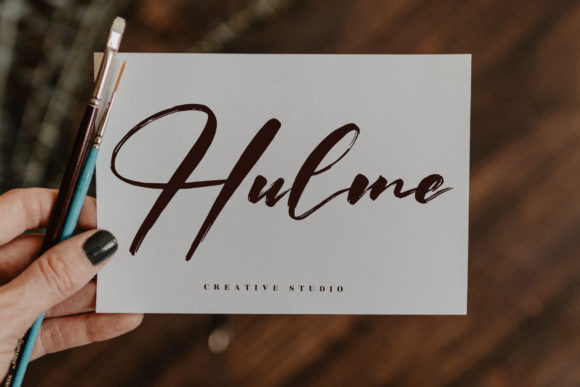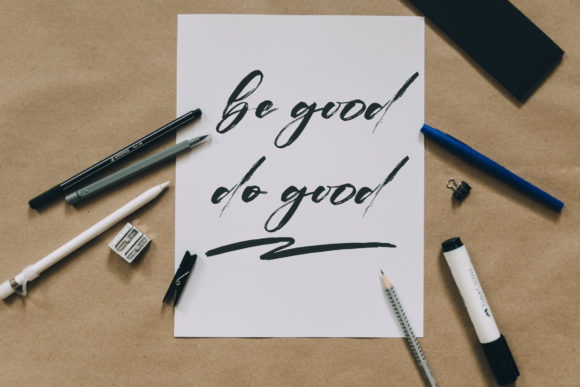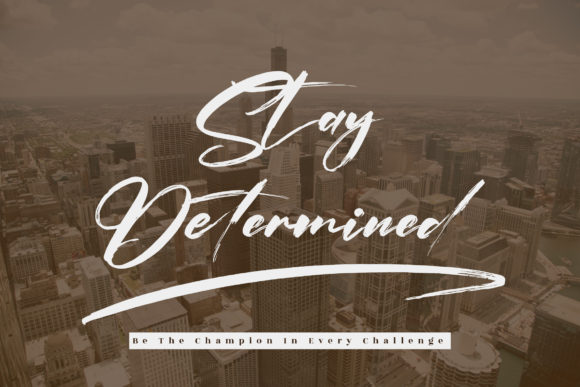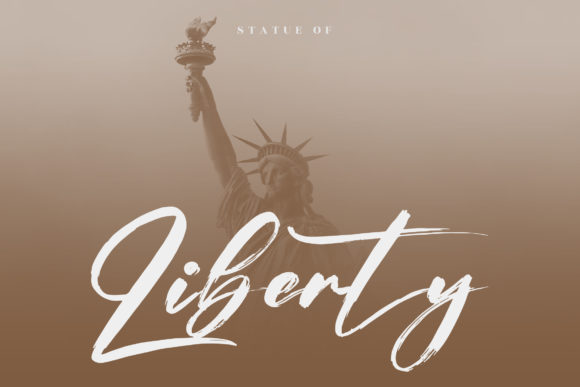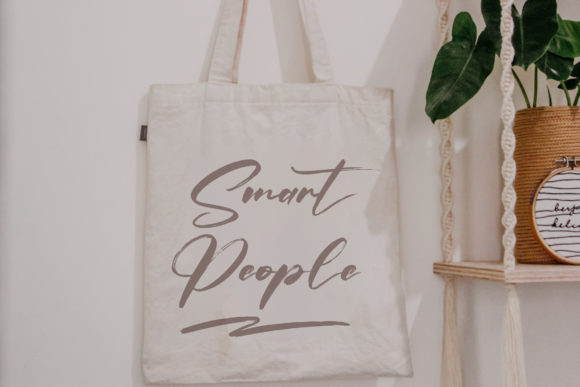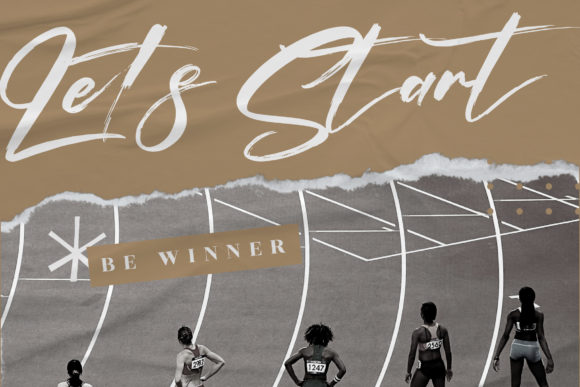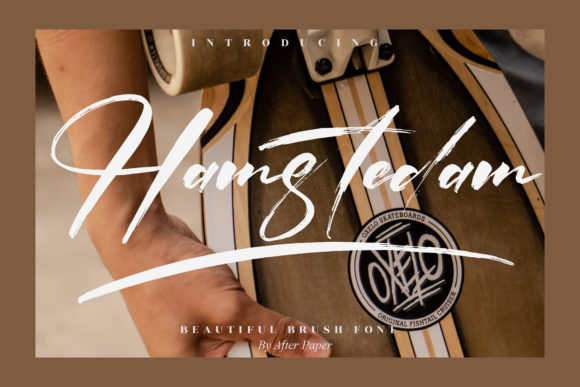
Introducing Hamstedam Font: Elevate Your Designs with Elegance and Class
Are you looking for a font that can add a touch of sophistication and refinement to your designs? Look no further than Hamstedam Font, a lovely and delicate script font that exudes elegance and class. Crafted with precision and attention to detail, Hamstedam is the perfect choice for designers and crafters who want to create beautiful and refreshing designs that stand out from the crowd.
What Makes Hamstedam Font Special?
Hamstedam Font is particularly crafted for those who need a beautiful and refreshing look to their designs. This font is designed to be versatile and can be used for a wide range of projects, from wedding invitations and branding materials to packaging and digital designs. With its delicate and elegant strokes, Hamstedam Font is sure to add a touch of sophistication to any design.
One of the standout features of Hamstedam Font is that it is PUA (Private Use Area) encoded. This means that you can access all glyphs and swashes with ease, giving you complete creative control over your designs. With PUA encoding, you can easily access and use the font’s built-in features, such as ligatures, stylistic alternates, and swashes, to create unique and eye-catching designs.
Hamstedam Font is perfect for designers and crafters who want to create beautiful and professional-looking designs. Whether you’re creating wedding invitations, branding materials, or digital designs, Hamstedam Font is the perfect choice. With its elegant and delicate strokes, Hamstedam Font is sure to add a touch of sophistication to any design.
Key Features of Hamstedam Font
- Lovely and delicate script font
- Exudes elegance and class
- Versatile and can be used for a wide range of projects
- Perfect for designers and crafters who want to create beautiful and refreshing designs
Tips and Tricks for Getting the Most Out of Hamstedam Font
- Use Hamstedam Font for wedding invitations, branding materials, and digital designs to add a touch of elegance and sophistication.
- Experiment with different font sizes and colors to create unique and eye-catching designs.
- Use the font’s built-in features, such as ligatures and swashes, to add a touch of personality to your designs.
- Pair Hamstedam Font with other fonts to create a unique and visually appealing design.
In conclusion, Hamstedam Font is a lovely and delicate script font that exudes elegance and class. With its PUA encoding and versatile design, Hamstedam Font is perfect for designers and crafters who want to create beautiful and refreshing designs. Whether you’re creating wedding invitations, branding materials, or digital designs, Hamstedam Font is sure to add a touch of sophistication to any design.